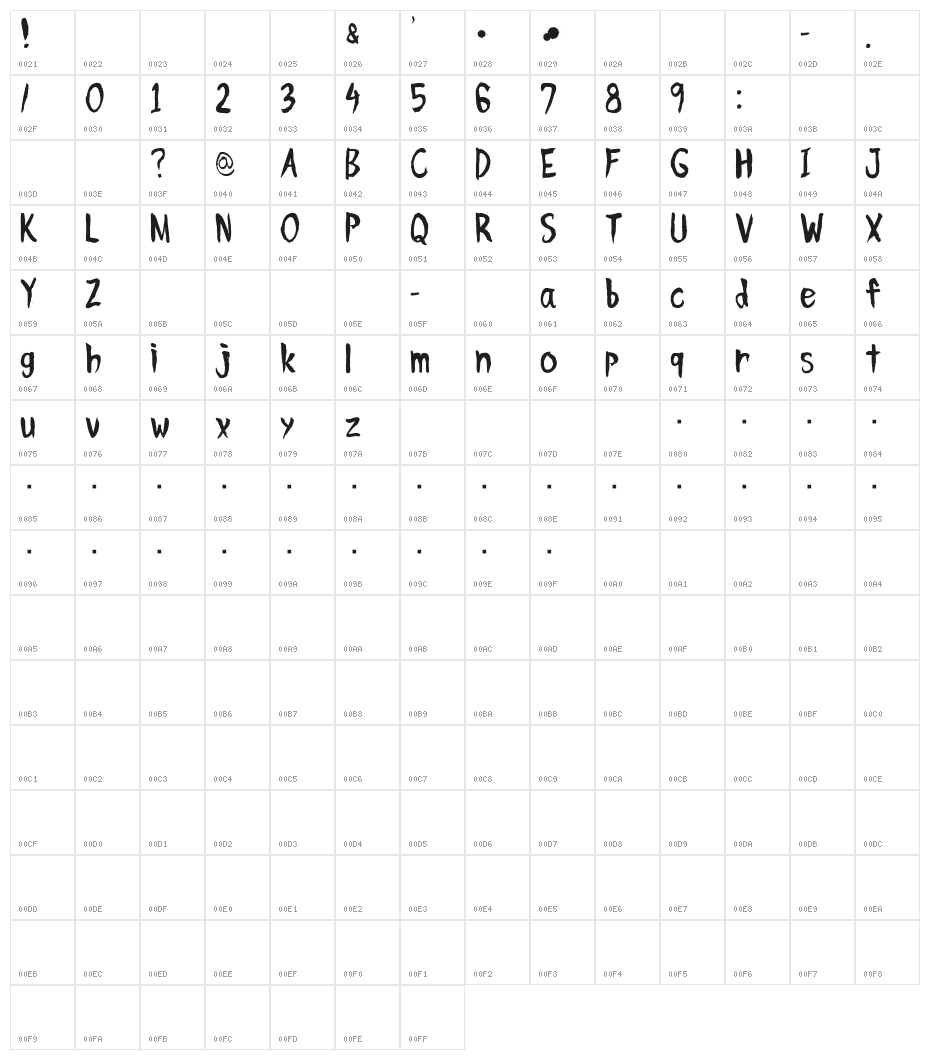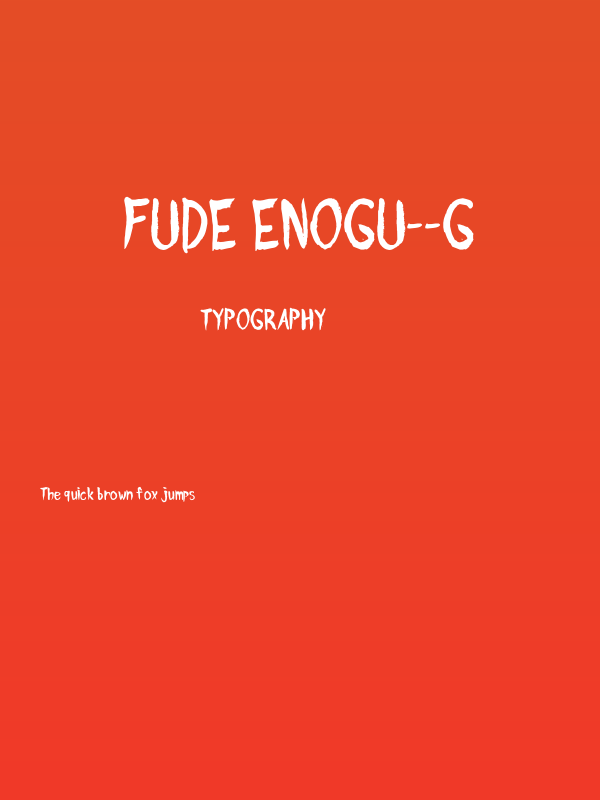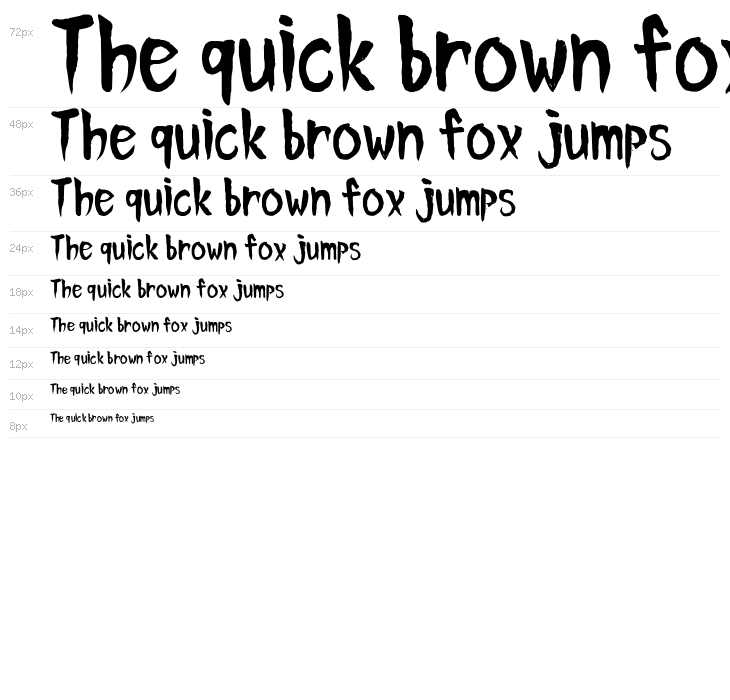
Fude Enogu__G Font
Fude Enogu__G Description
This font features a bold, expressive style with a hand-painted appearance. The characters are irregular and dynamic, with varying stroke widths that create a lively and artistic impression. The uppercase and lowercase letters maintain a consistent flow, while the numerals and special characters add to the font's playful nature. The brush-like strokes give it a textured, organic feel, making it ideal for creative projects that require a personal touch. Its unique design is both eye-catching and versatile, suitable for a range of artistic applications.
| Overall Style | Artistic, Expressive |
| Use Case | Headlines, Logos, Artistic projects |
| Proposed Projects | Ideal for posters, artistic branding, album covers, and creative invitations. |